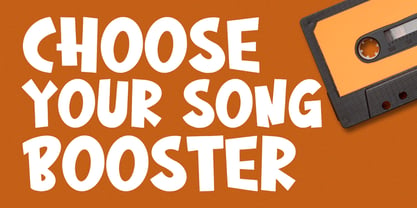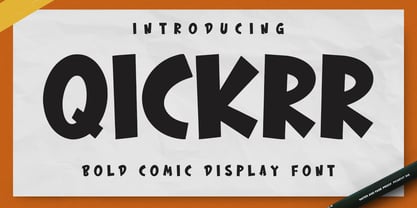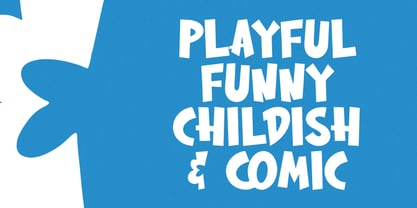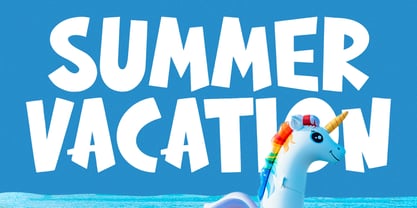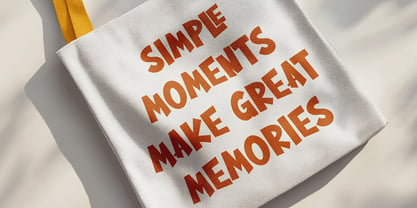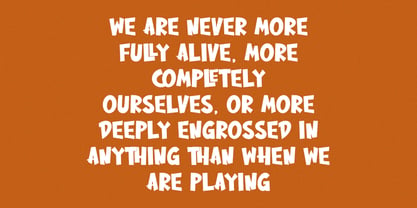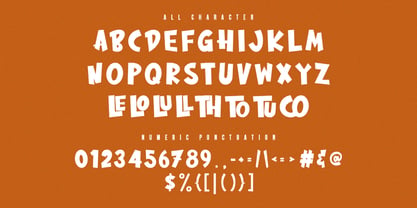
MC Qickrr
by Maulana Creative
The MC Qickrr Font Family was designed by Gilang Maulana and published by Maulana Creative. MC Qickrr contains 1 styles. More about this family
Qickrr is a comic bold display handwritten font. With bold stroke, fun character with a bit of ligatures. To give you an extra creative work. Qickrr font support multilingual more than 100+ language. This font is good for logo design, Social media, Movie Titles, Books Titles, a short text even a long text letter and good for your secondary text font with sans or serif. Make a stunning work with Qickrr font.
Designers: Gilang Maulana
Foundry: Maulana Creative